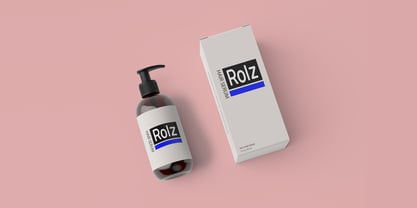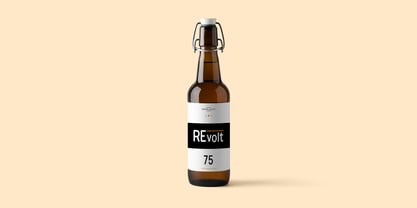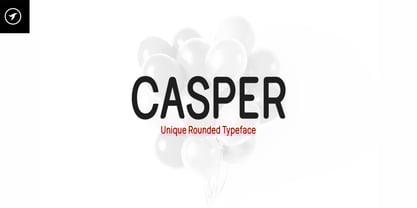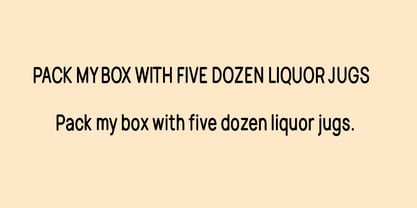
Casper Nuvo
by Designova
The Casper Nuvo Font Family was designed by Lisha Joseph and published by Designova. Casper Nuvo contains 2 styles and family package options. More about this family
Casper is a unique rounded typeface for logo, branding, headlines, big text & display usage. The typeface is best suited for creating professional logos, marketing graphics and promotional designs. Please see the examples shown above to get an idea about the capability of this typeface.